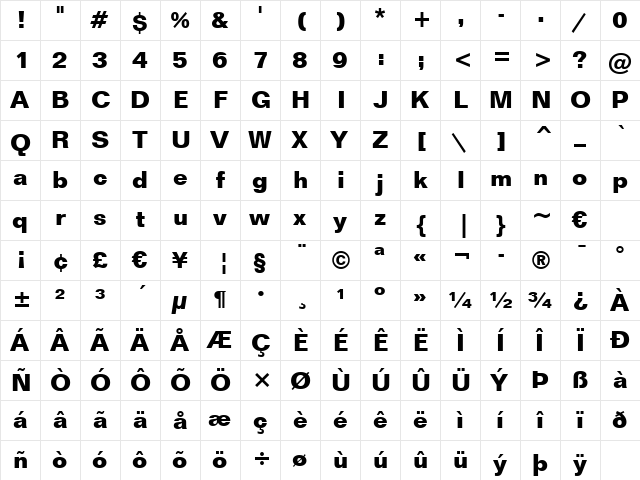
Folio Bk BT Bold Font Preview
Folio Bk BT Bold
Design Context for Folio Bk BT Typeface
Folio Bk BT takes a measured approach to typography — its balanced proportions and neutral character make it a reliable workhorse for both digital and print work. Its bold stroke weight gives it real presence on the page.